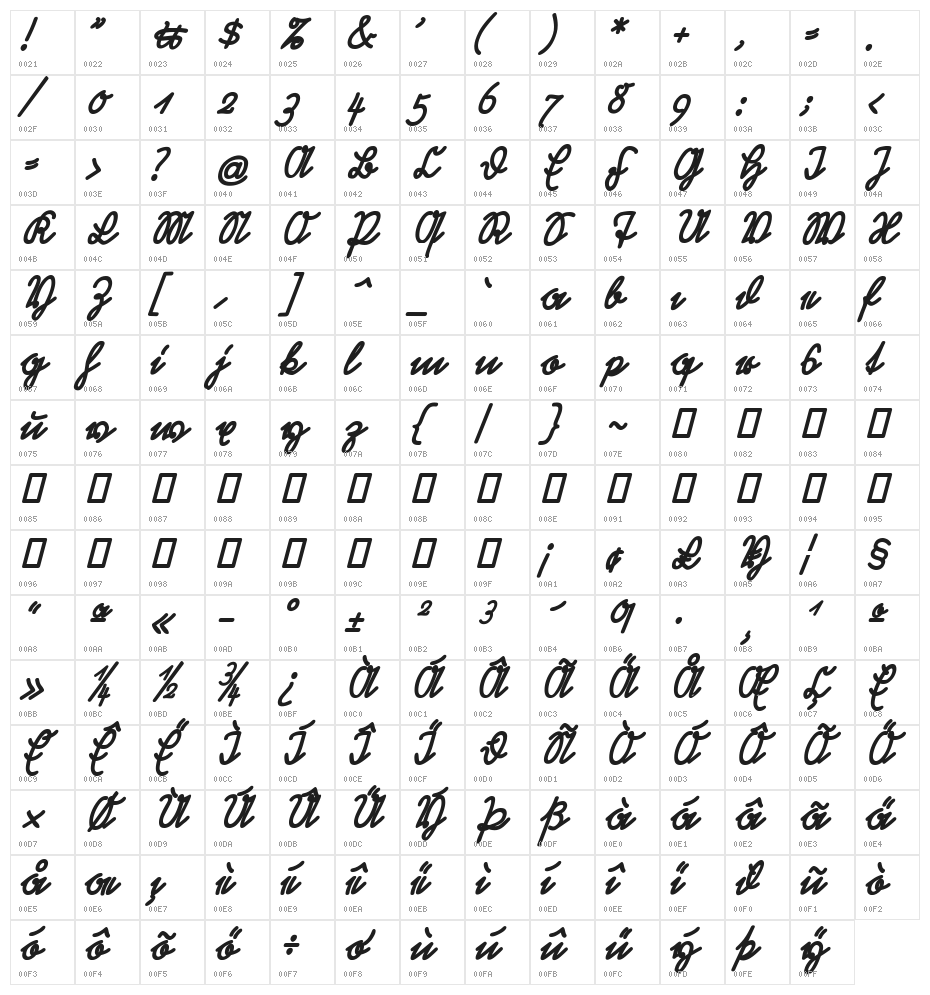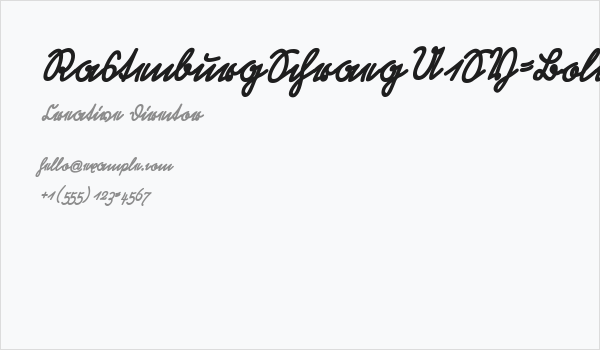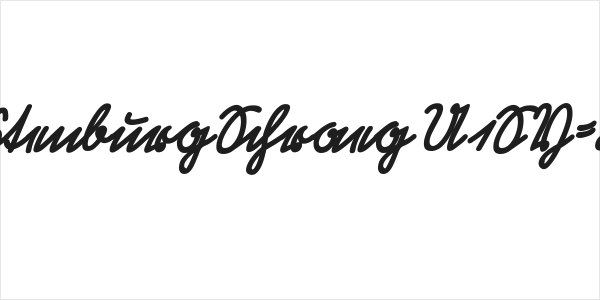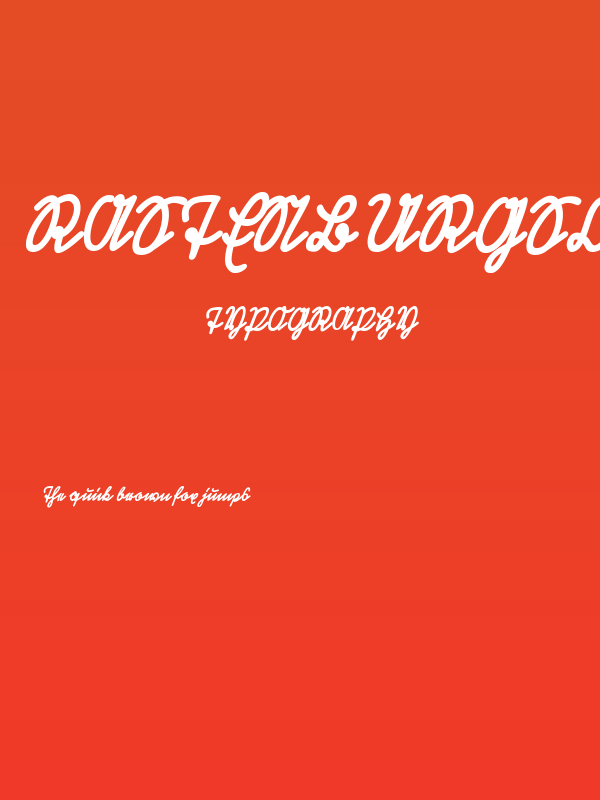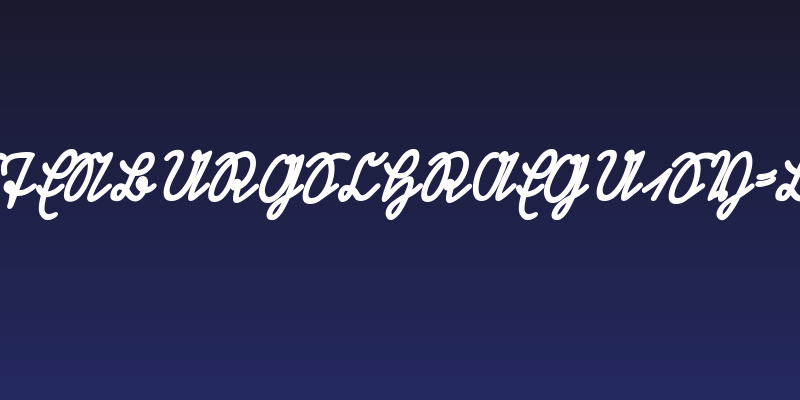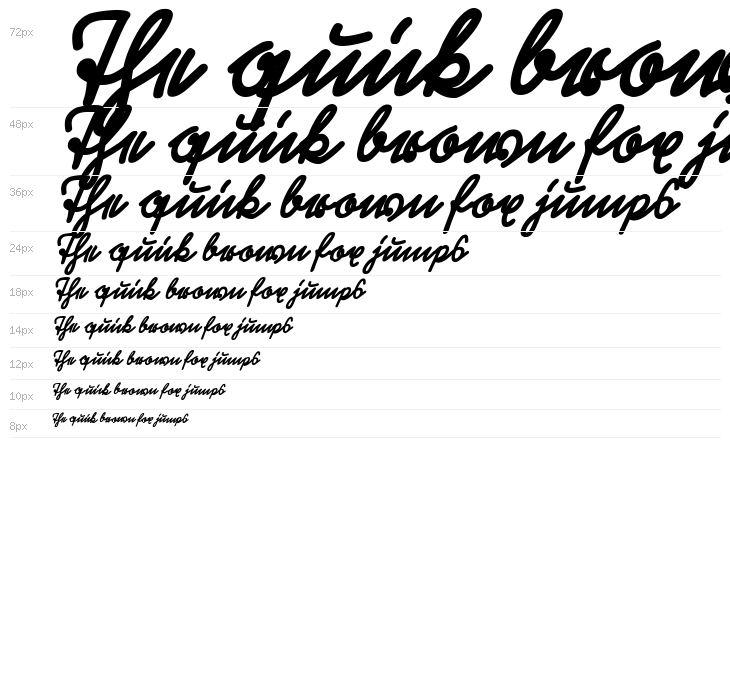
RastenburgSchraegU1SY-Bold Font
RastenburgSchraegU1SY-Bold Description
This font features a bold, cursive style with a strong emphasis on fluidity and connectedness between characters. The strokes are thick and consistent, giving it a robust and dynamic appearance. Each letter is elegantly slanted, enhancing the script's flowing nature. The uppercase letters are distinct and prominent, while the lowercase letters maintain a cohesive and harmonious look. Numbers and special characters are designed to match the overall aesthetic, ensuring uniformity across all elements. The font's boldness and script style make it suitable for projects that require a touch of elegance and flair.
Use CaseLogos, Headlines, Invitations
Proposed ProjectsIdeal for wedding invitations, elegant branding, greeting cards, and decorative signage.